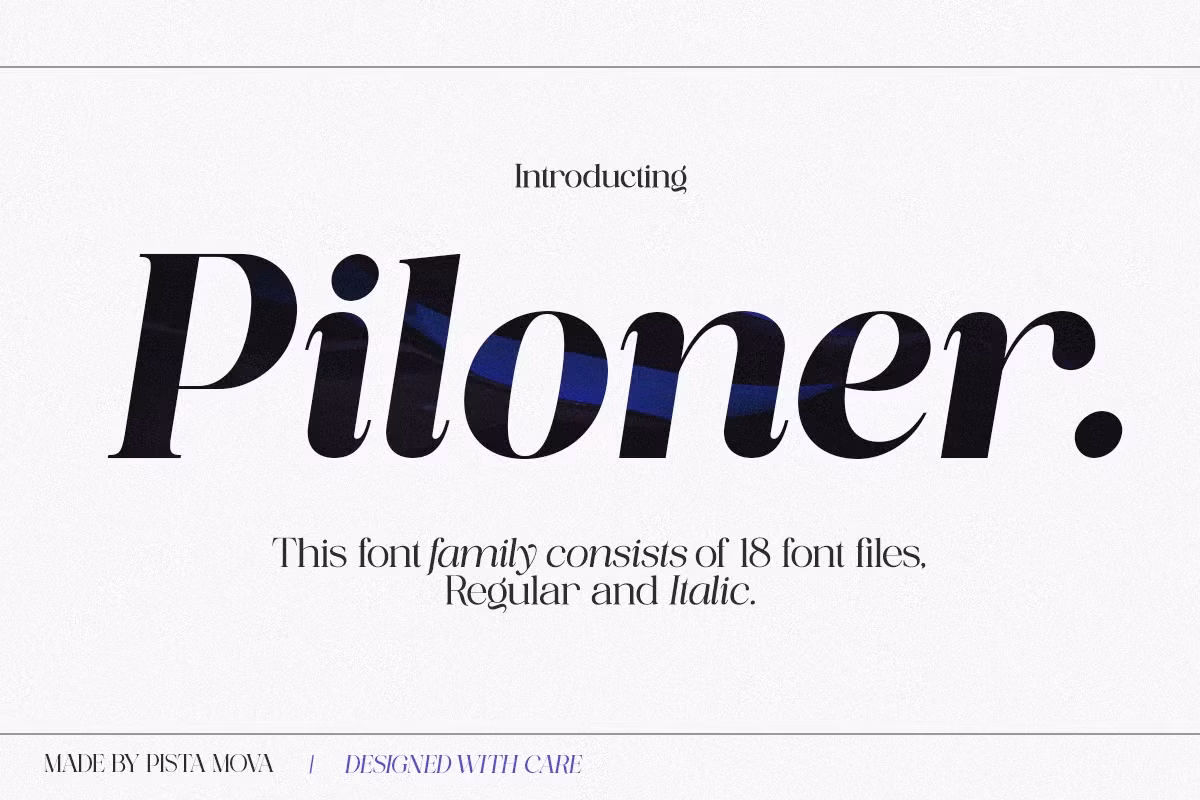
Unlock a world of creative possibilities with Piloner - 18 Font Free Download. This extensive font family includes 18 unique fonts, offering a wide range of styles and weights, making it perfect for everything from branding, logos, and websites to editorial design, posters, and packaging.
Piloner combines elegance with versatility, allowing you to mix and match different fonts to create stunning designs. The family includes uppercase and lowercase letters, numerals, punctuation, and multilingual support, giving you full creative control to explore various layout options.
Whether you need something sleek and modern or bold and impactful, this font family provides the perfect typefaces for your design projects. For any commercial use, make sure to purchase the appropriate license. Download Piloner - 18 Font Free Download today and enhance your creative work with a diverse and stylish font collection.